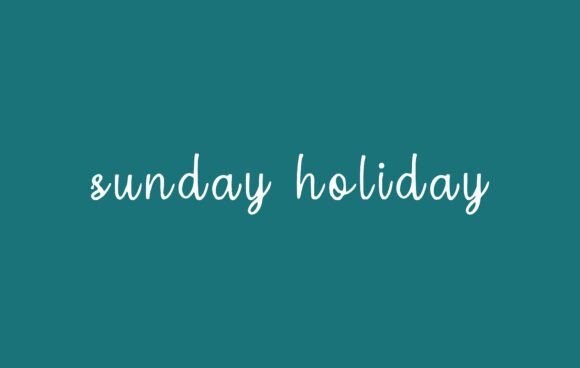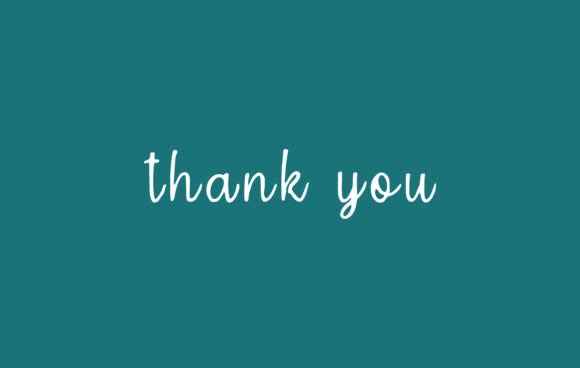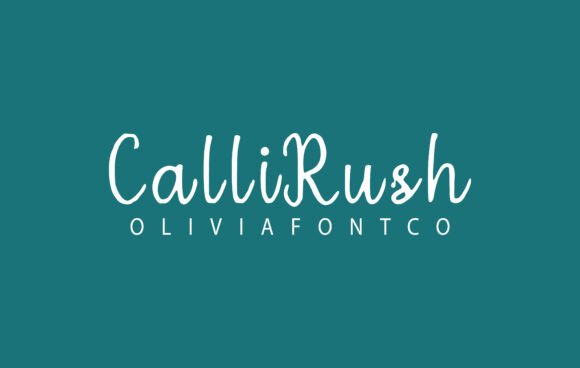
Introducing Callirush Font: The Ultimate Handwritten Font for Creative Projects
Are you tired of using generic fonts that lack personality? Look no further than Callirush Font, an authentic handwritten font with a romantic touch that’s sure to elevate your creative projects to new heights. In this article, we’ll dive into the features and benefits of Callirush Font, and explore how it can be used to add a touch of elegance and sophistication to your designs.
What is Callirush Font?
Callirush Font is a beautifully crafted handwritten font that’s designed to be both legible and visually stunning. With its unique blend of cursive and print elements, this font has a distinctive romantic feel that’s perfect for a wide range of creative projects. Whether you’re designing a wedding invitation, a social media post, or a magazine headline, Callirush Font is the perfect choice for adding a touch of personality and style.
Key Features of Callirush Font
- Authentic Handwritten Style: Callirush Font is designed to mimic the look and feel of handwritten text, giving it a unique and personal touch.
- Romantic Touch: With its flowing curves and elegant lines, Callirush Font has a romantic feel that’s perfect for wedding invitations, love letters, and other sentimental designs.
- Legible and Readable: Despite its ornate appearance, Callirush Font is highly legible and readable, making it perfect for use as both title and body text.
- Versatile: Callirush Font can be used for a wide range of creative projects, from magazine headlines and social media posts to branding and advertising materials.
Uses for Callirush Font
So, what can you use Callirush Font for? The possibilities are endless! Here are a few ideas to get you started:
- Wedding Invitations: Add a touch of romance and elegance to your wedding invitations with Callirush Font.
- Social Media Posts: Use Callirush Font to create eye-catching social media posts that stand out from the crowd.
- Magazine Headlines: Add a touch of sophistication and style to your magazine headlines with Callirush Font.
- Branding and Advertising: Use Callirush Font to create unique and memorable branding and advertising materials.
- Cards and Stationery: Add a personal touch to your cards and stationery with Callirush Font.
Why Choose Callirush Font?
So, why should you choose Callirush Font for your creative projects? Here are just a few reasons:
- Unique and Authentic: Callirush Font is a one-of-a-kind font that’s sure to set your designs apart from the crowd.
- Elegant and Sophisticated: With its romantic touch and elegant lines, Callirush Font adds a touch of sophistication and style to any design.
- Highly Legible: Despite its ornate appearance, Callirush Font is highly legible and readable, making it perfect for use as both title and body text.
- Versatile: Callirush Font can be used for a wide range of creative projects, making it a valuable addition to any designer’s toolkit.
In conclusion, Callirush Font is a beautiful and versatile handwritten font that’s perfect for adding a touch of elegance and sophistication to your creative projects. With its unique blend of cursive and print elements, romantic touch, and high legibility, Callirush Font is sure to become a favorite among designers and crafters. Whether you’re designing a wedding invitation, a social media post, or a magazine headline, Callirush Font is the perfect choice for adding a touch of personality and style.